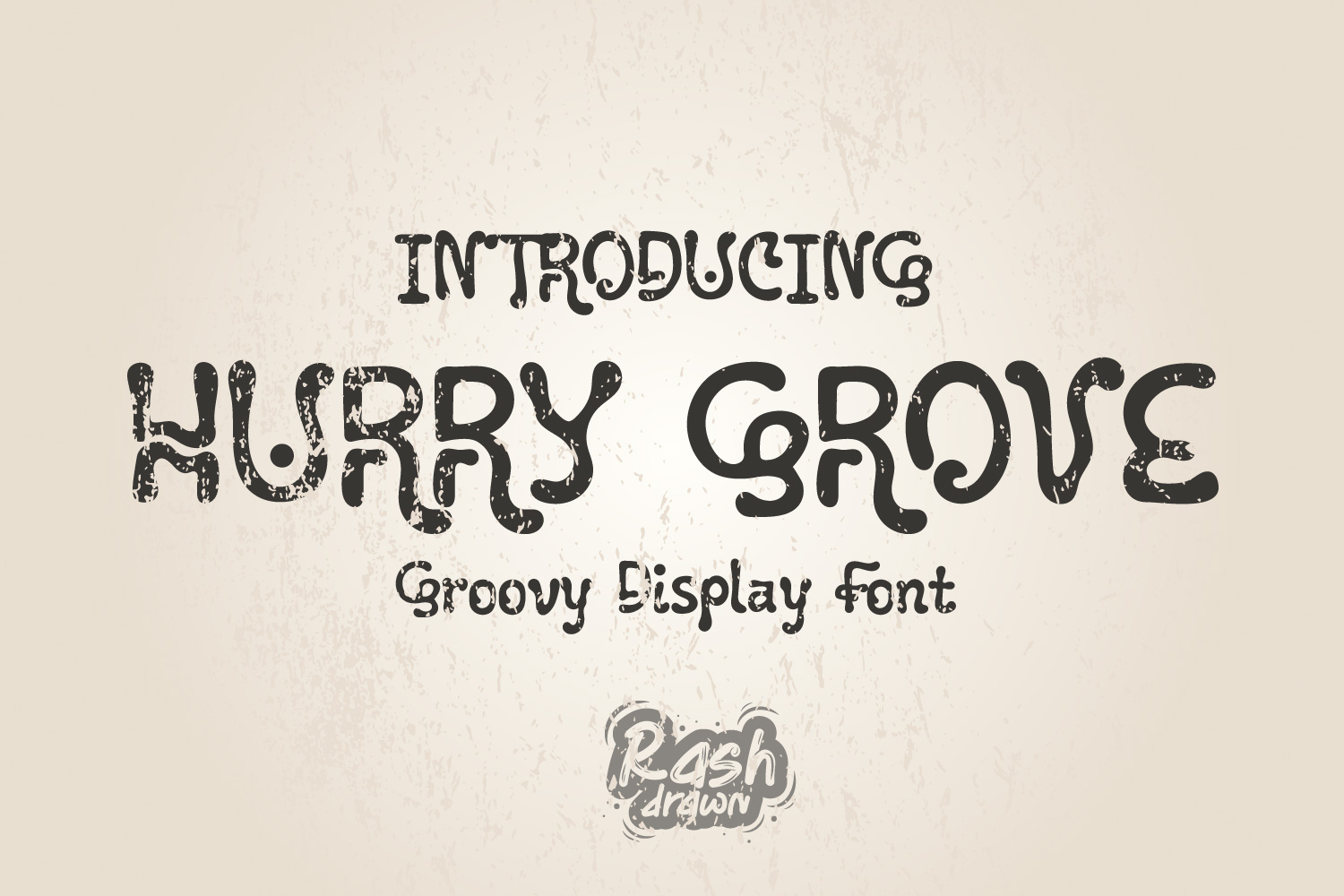
HURRY GROVE Groovy Display Font
HurryGrove
HURRY GROVE is a playful groovy display font inspired by retro psychedelic lettering, funky 70s aesthetics, and whimsical hand-drawn typography. With its unique flowing curves, organic shapes, and bold personality, this font is designed to bring a cheerful, nostalgic, and eye-catching look to your creative projects.
Perfect for designers looking to add a fun vintage vibe while maintaining readability and strong visual impact.
Font Features:
Uppercase & Lowercase Letters
Numbers & Punctuation
Unique Handcrafted Character Shapes
Fun Retro-Groovy Style
Why You'll Love It
HURRY GROVE combines the charm of vintage groovy typography with a modern handcrafted feel. Its quirky curves and organic letterforms make every word feel lively, friendly, and memorable.
Whether you're creating a retro poster, playful branding, children's products, or eye-catching social media content, HURRY GROVE will help your designs stand out effortlessly.